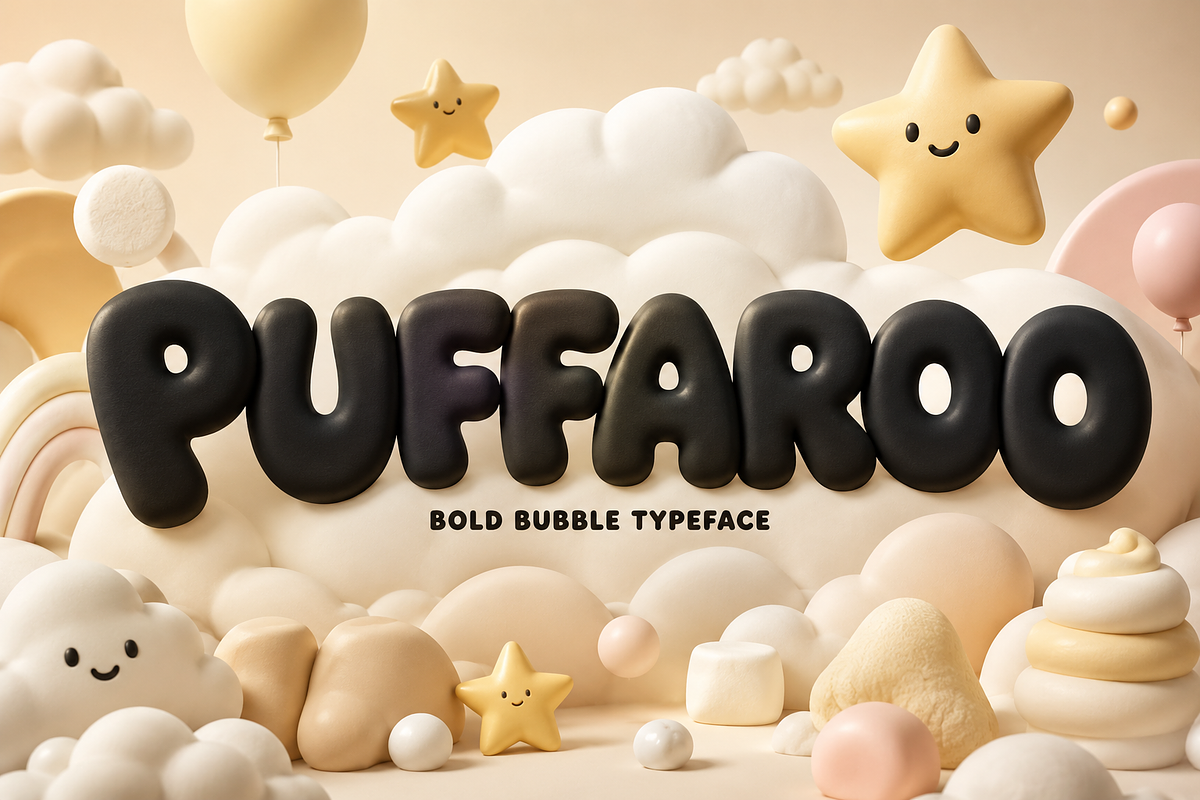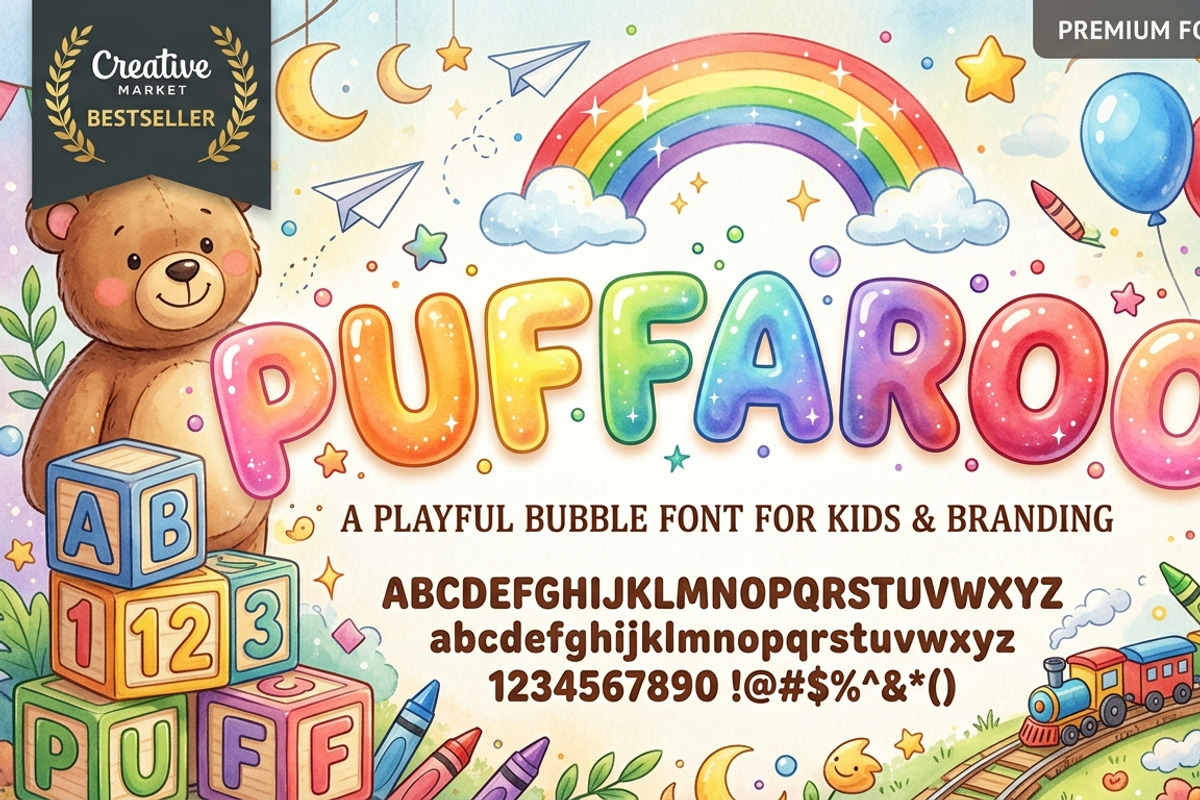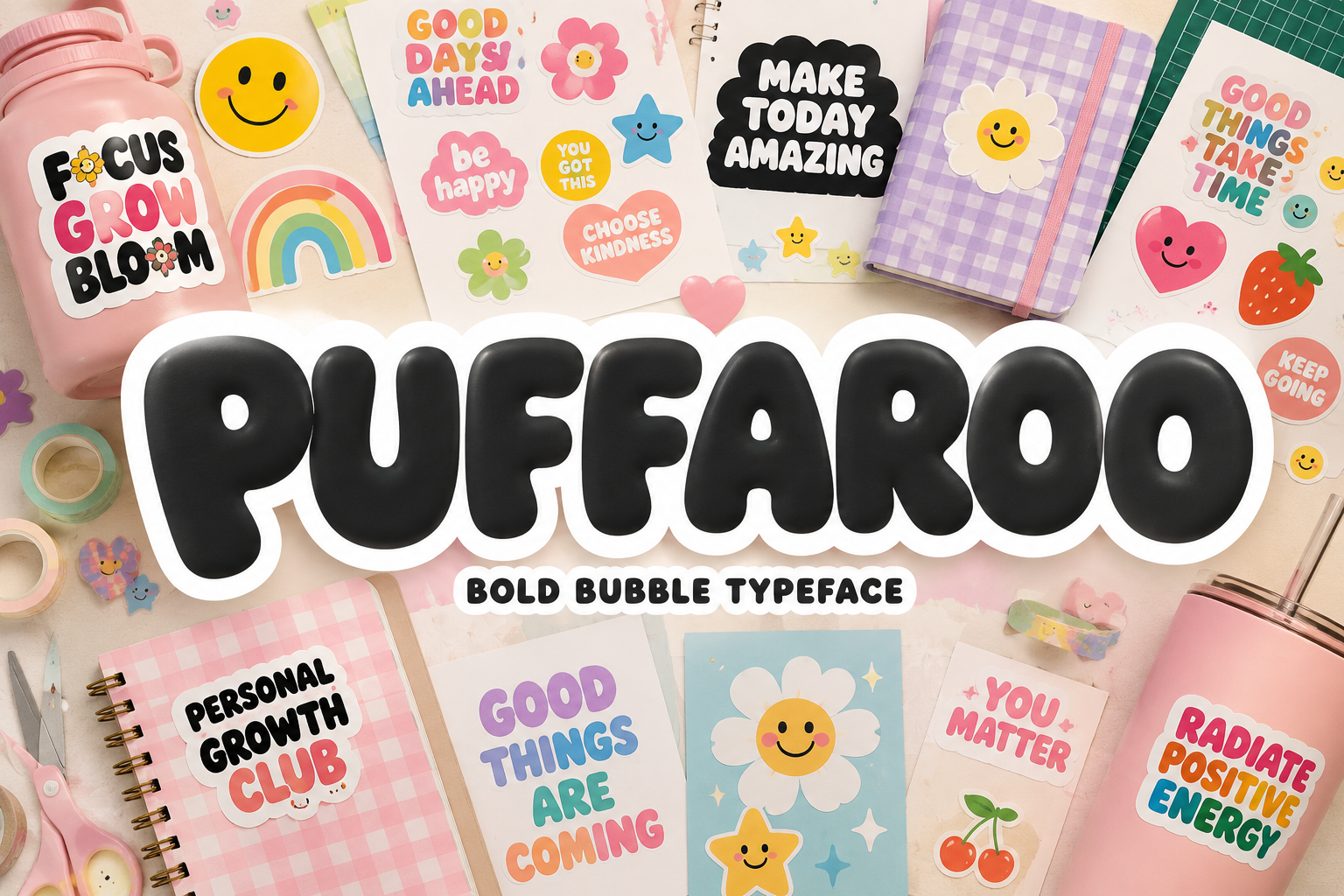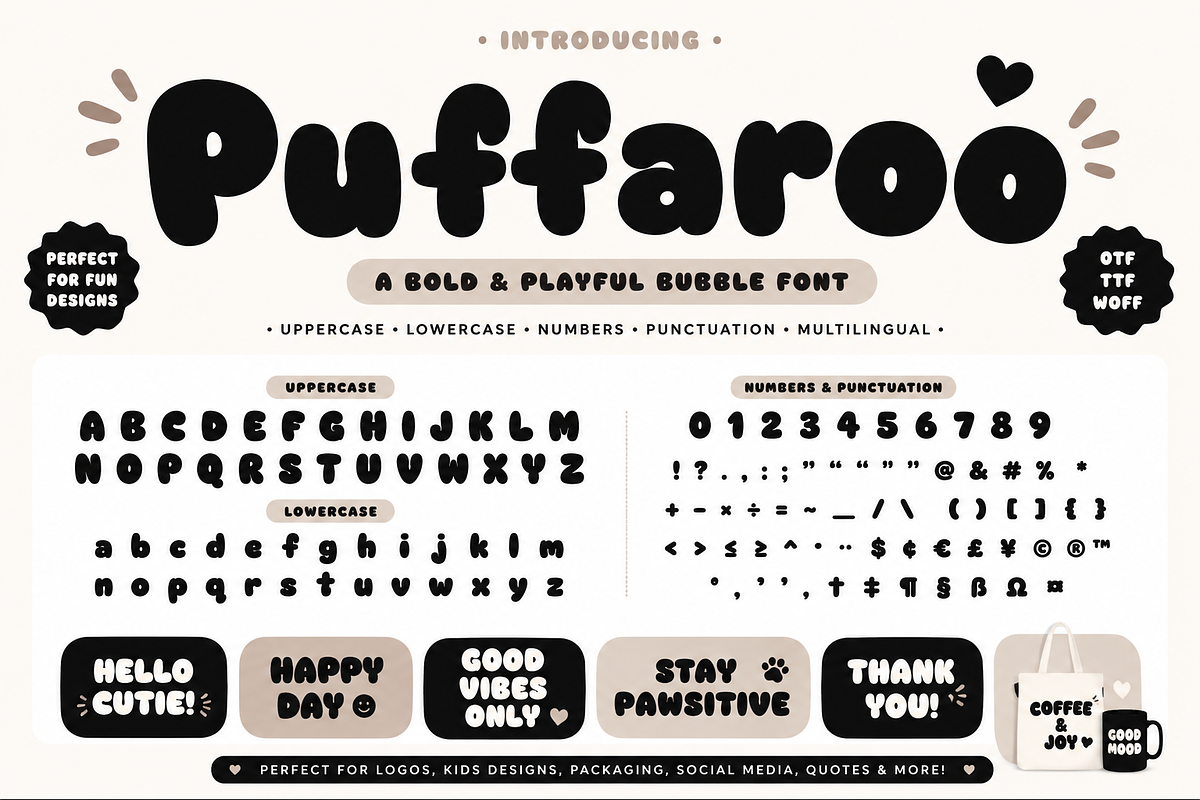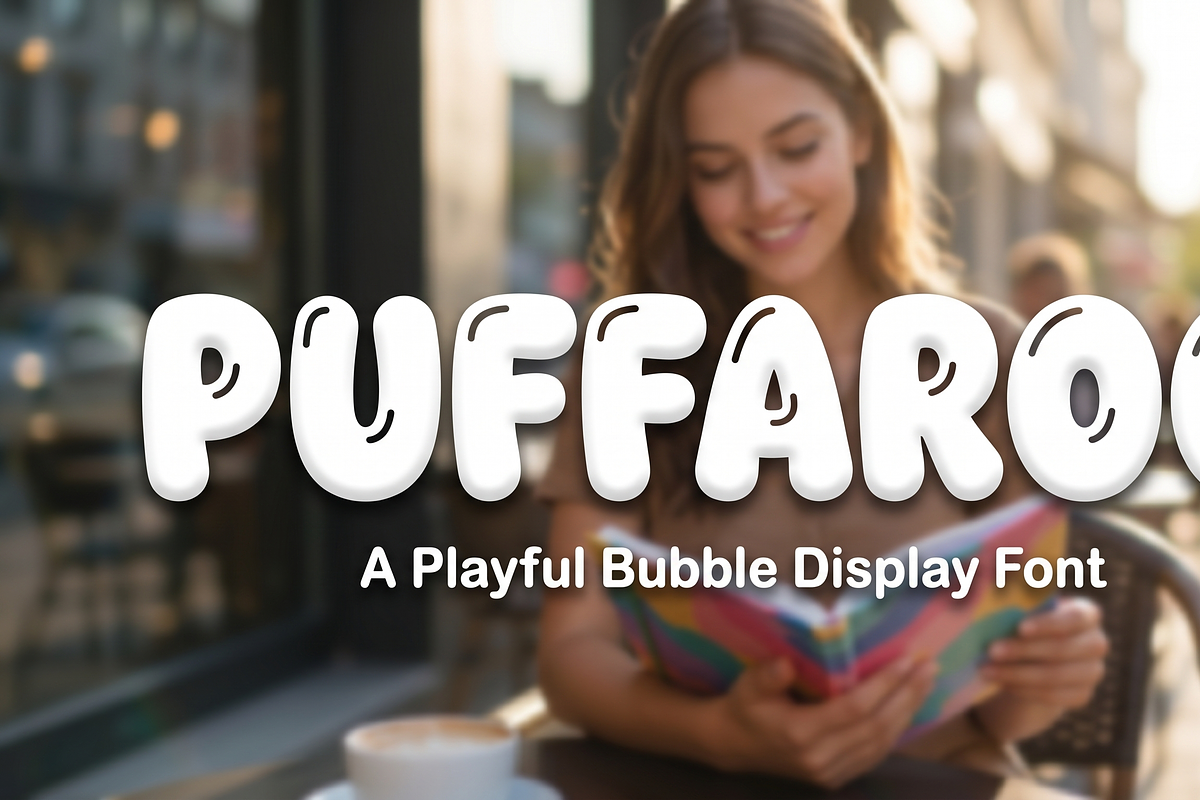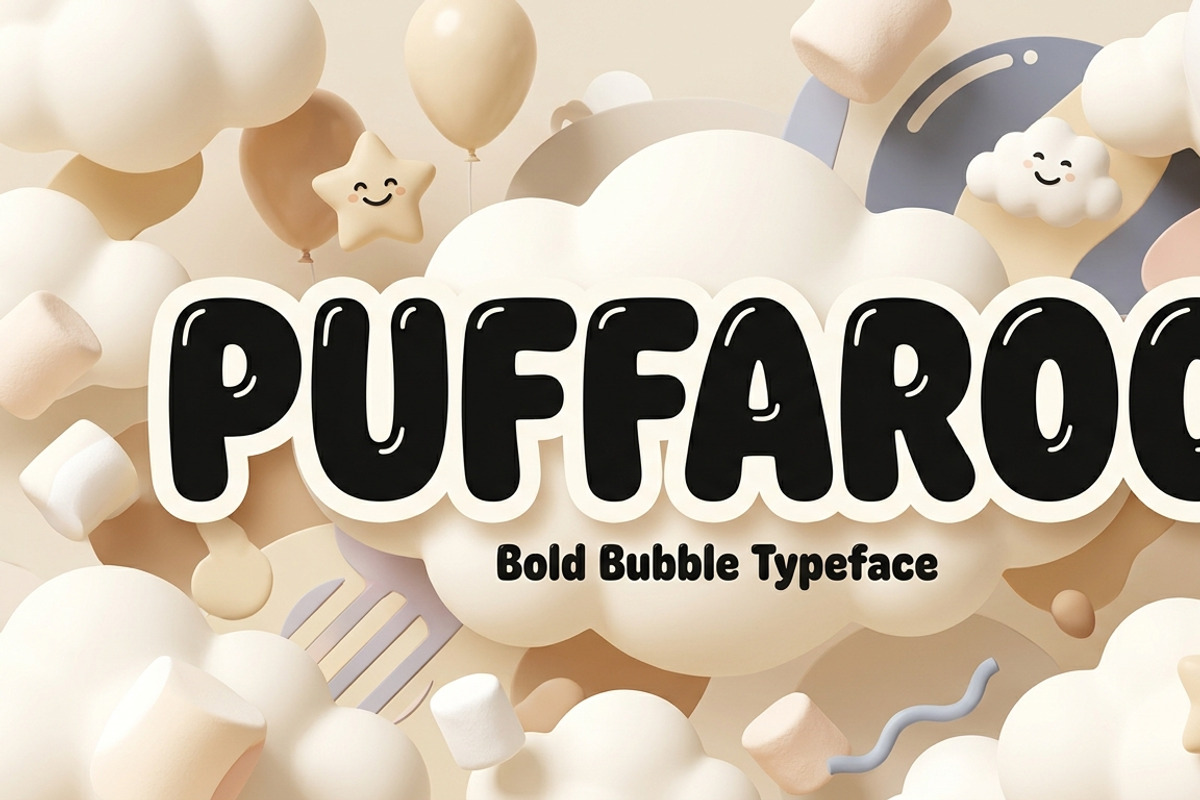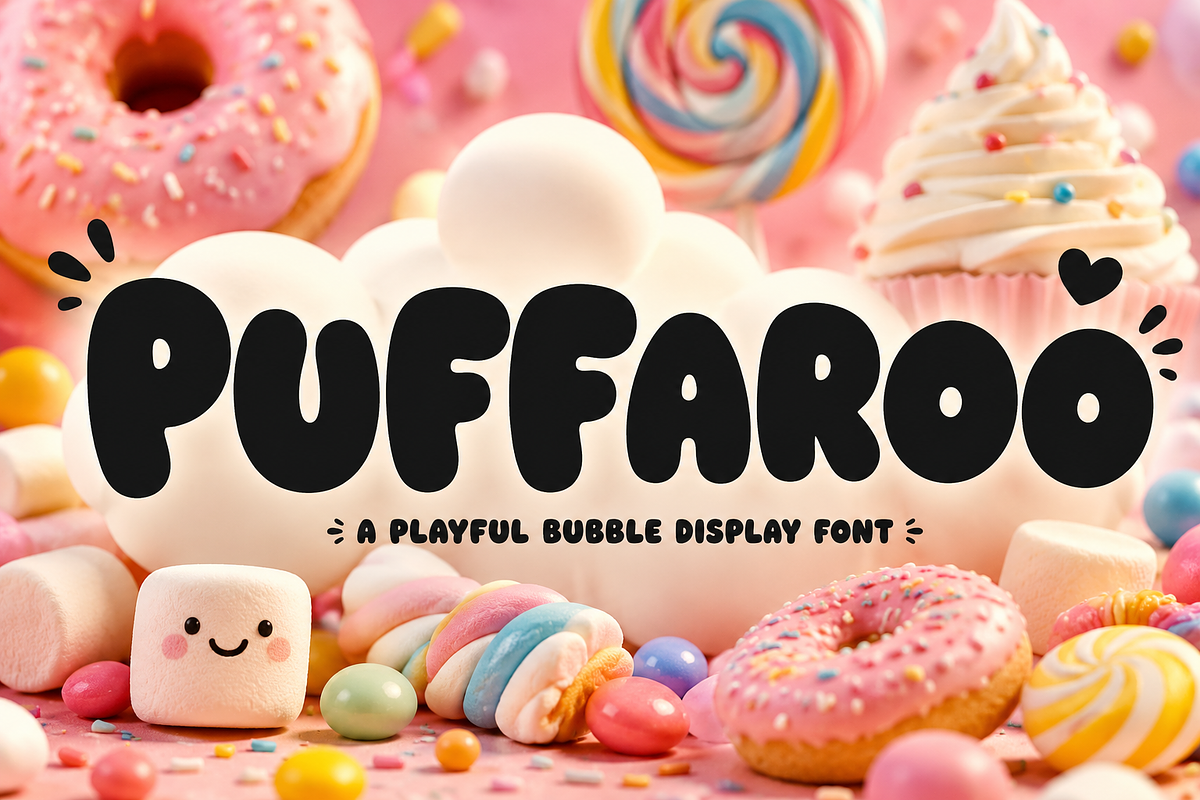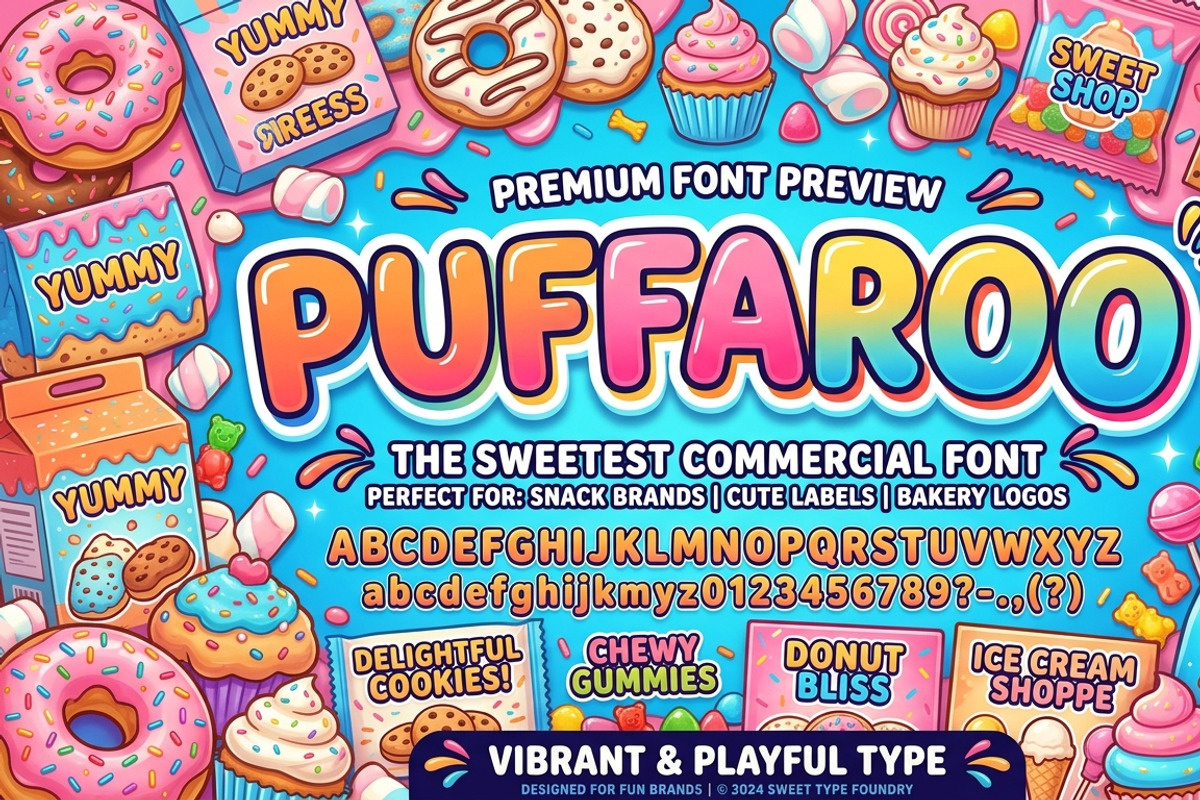
Puffaroo – Playful Bubble Font
Meet Puffaroo, a bold and cheerful bubble typeface packed with personality.
Designed with soft, rounded curves, chunky letterforms, and a fun cartoon-inspired style, Puffaroo instantly adds a friendly and energetic feel to any design.
Whether you're creating children's products, snack packaging, sticker designs, YouTube thumbnails, social media content, branding projects, or playful merchandise, Puffaroo helps your designs stand out with confidence and charm.
• Children's Branding • Toy Packaging • Food Packaging • Sticker Designs • Cricut Projects • T-Shirt Designs • Posters • YouTube Thumbnails • Social Media Graphics • Book Covers • Party Invitations • Product Packaging • Logo Design • School Projects
Bring fun, creativity, and playful energy to your next project with Puffaroo.